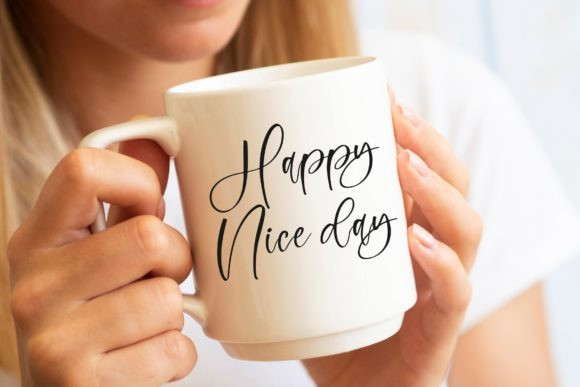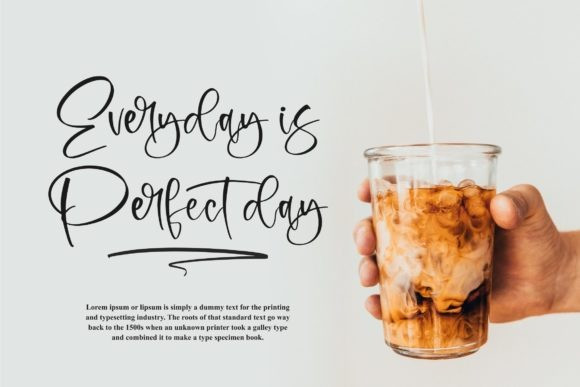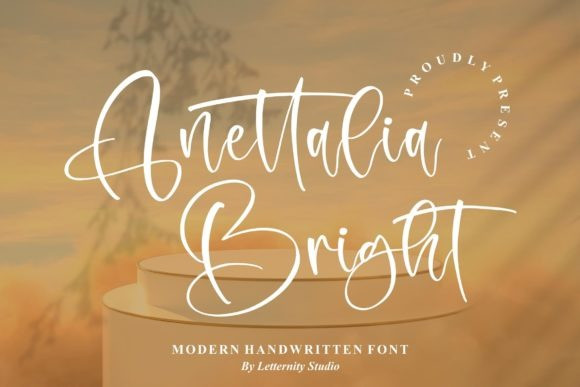
Anettalia Bright Font
Anettalia Bright Font is a lovely and stylish script font. This font is PUA encoded which means you can access all of the glyphs and swashes with ease!